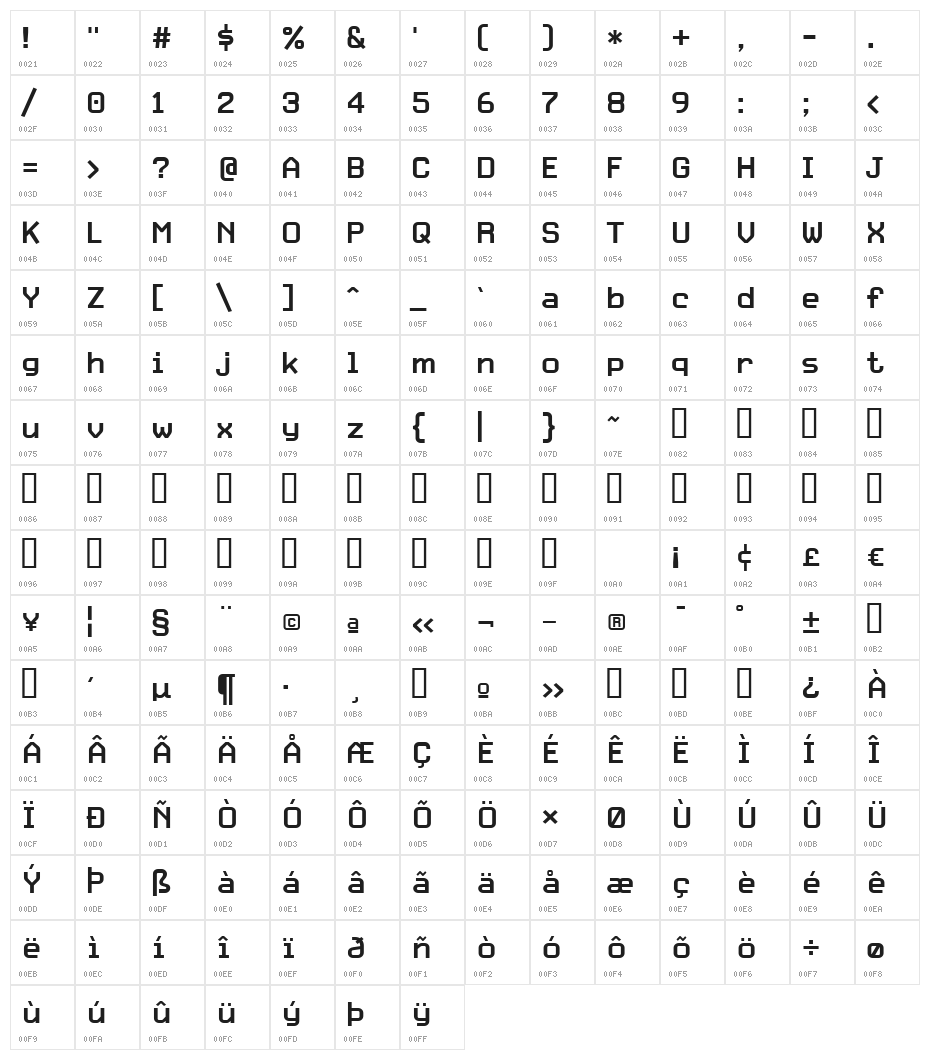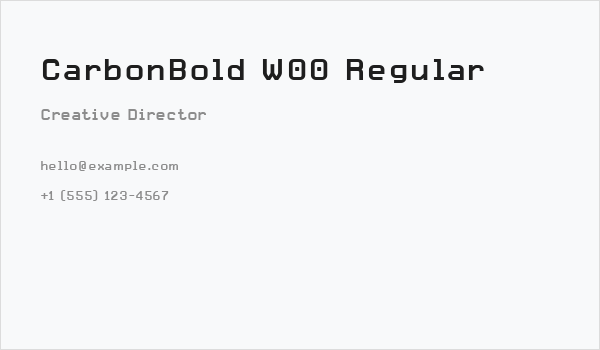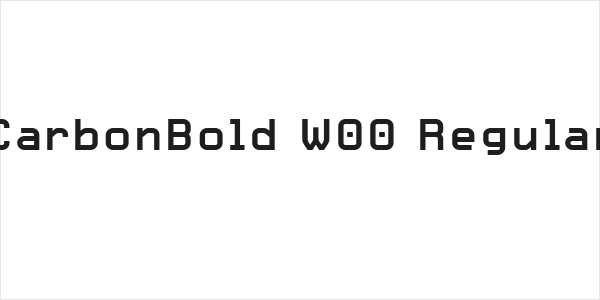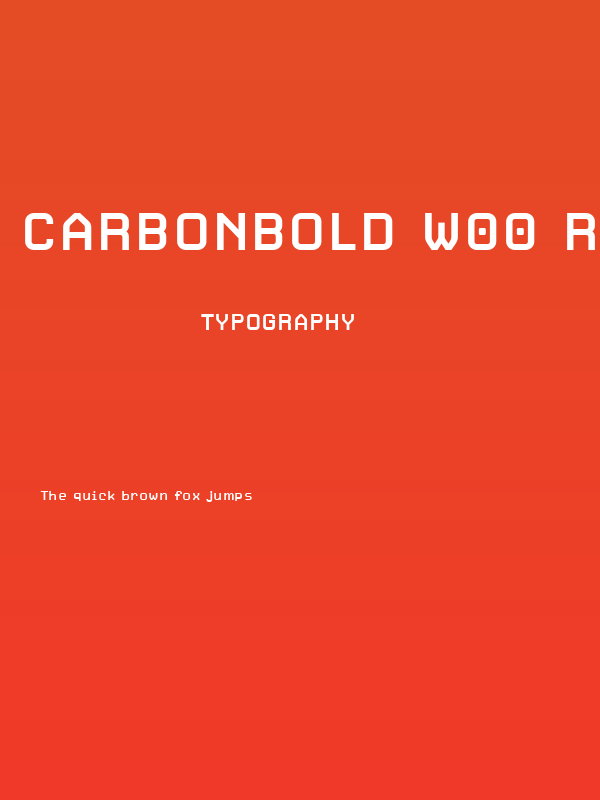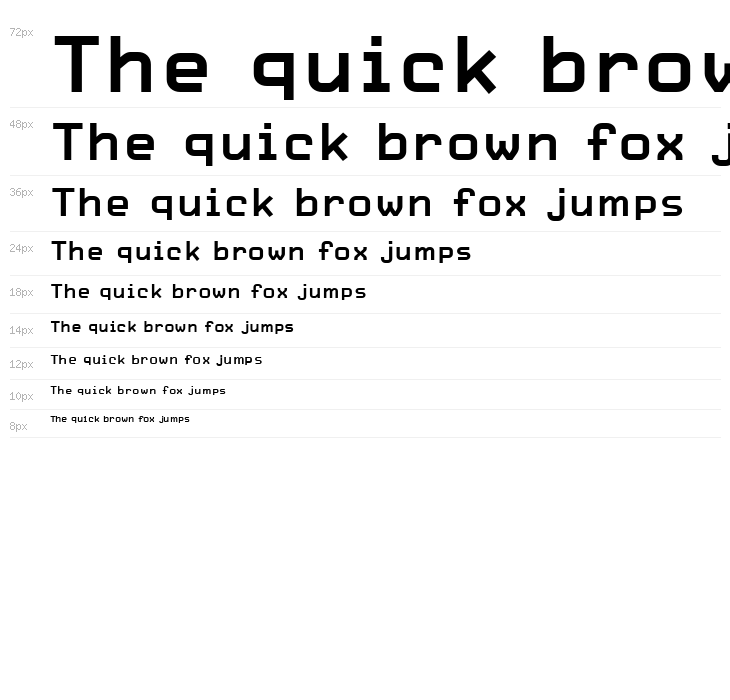
CarbonBold W00 Regular Font
CarbonBold W00 Regular Description
This font features a modern, geometric design with a strong, bold presence. The characters are constructed with clean, straight lines and rounded corners, giving it a contemporary and approachable feel. The uppercase letters are uniform in height, while the lowercase letters maintain a consistent x-height, ensuring readability. The numerals are distinct and easily distinguishable, with a similar geometric style. Special characters are well-integrated, maintaining the overall aesthetic. This font is versatile, suitable for both digital and print media, and can be used to create a strong visual impact.
| Use Case | Headlines, Logos, Digital interfaces |
| Proposed Projects | Ideal for branding, headlines, posters, and digital interfaces. |